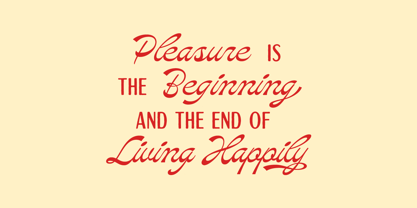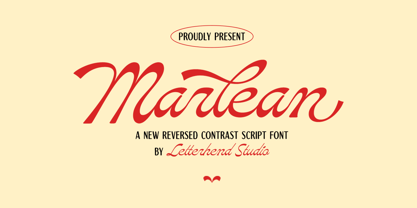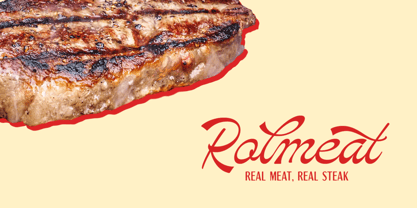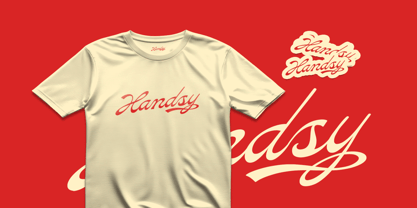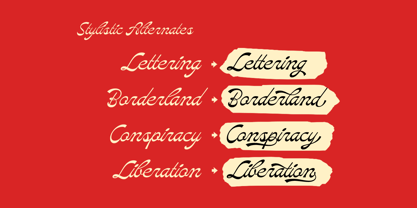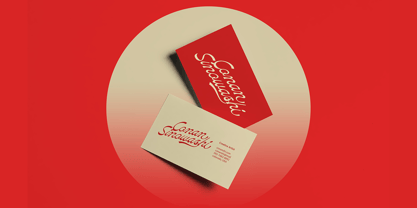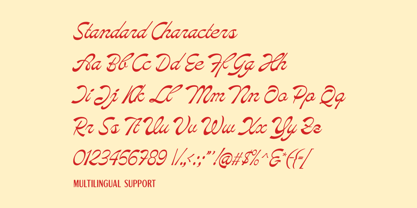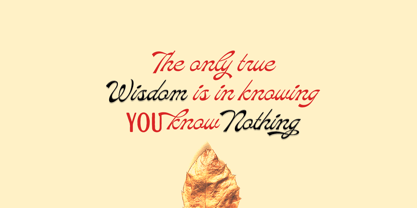
Marlean
by Letterhend
The Marlean Font Family was designed by Hendry Juanda and published by Letterhend. Marlean contains 1 styles. More about this family
Marlean is a charming reversed-contrast script font that radiates elegance and nostalgia. Designed by Letterhend Studio, this font blends vintage aesthetics with a modern touch, making it perfect for sophisticated branding, logos, packaging, and editorial designs.
The warm and timeless vibe of Marlean makes it suitable for retro-inspired designs, romantic themes, or any project that demands a personal and stylish feel.
Features :
• Uppercase & lowercase
• Numbers and punctuation
• Alternates Character
• Multilingual support
Designers: Hendry Juanda
Foundry: Letterhend